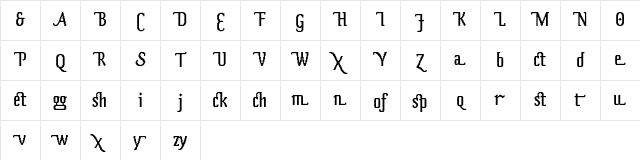
Zeitgeist MT Alternative
Style: MT Alternative
Design Context for Zeitgeist
Zeitgeist is a composed and adaptable typeface that performs quietly and consistently across a wide range of design contexts.